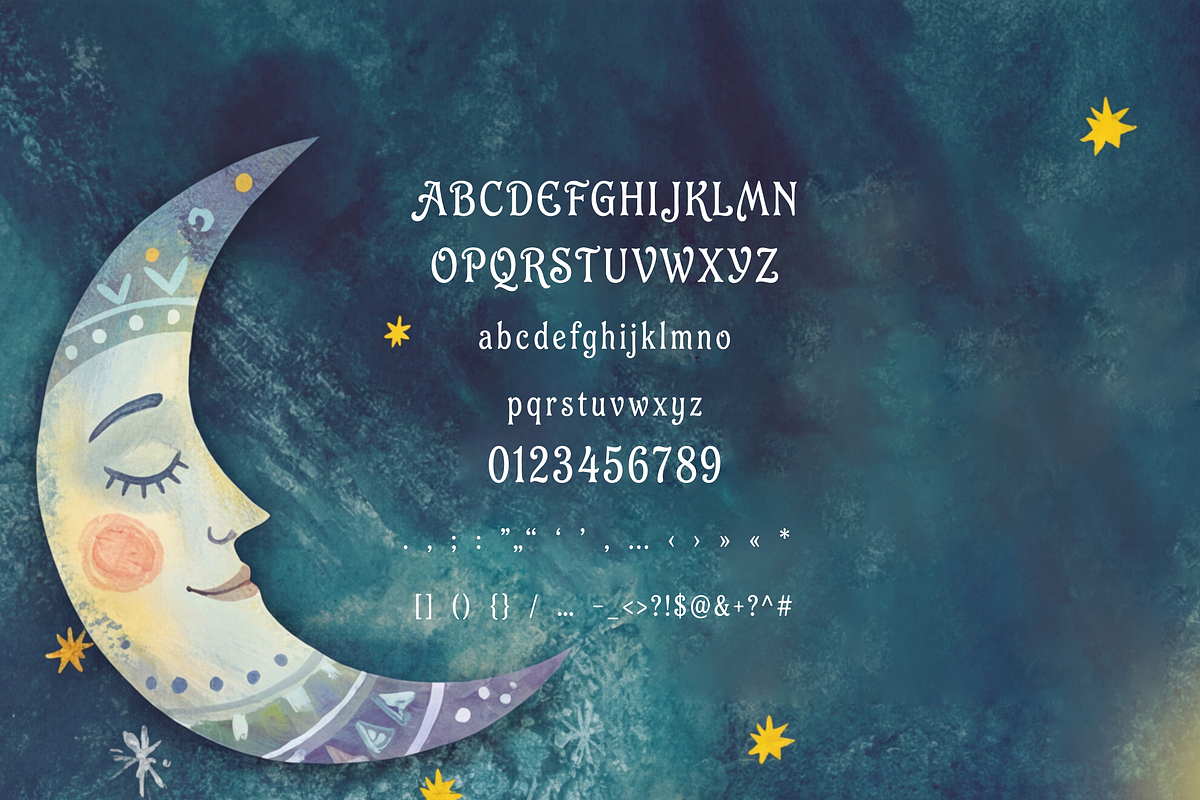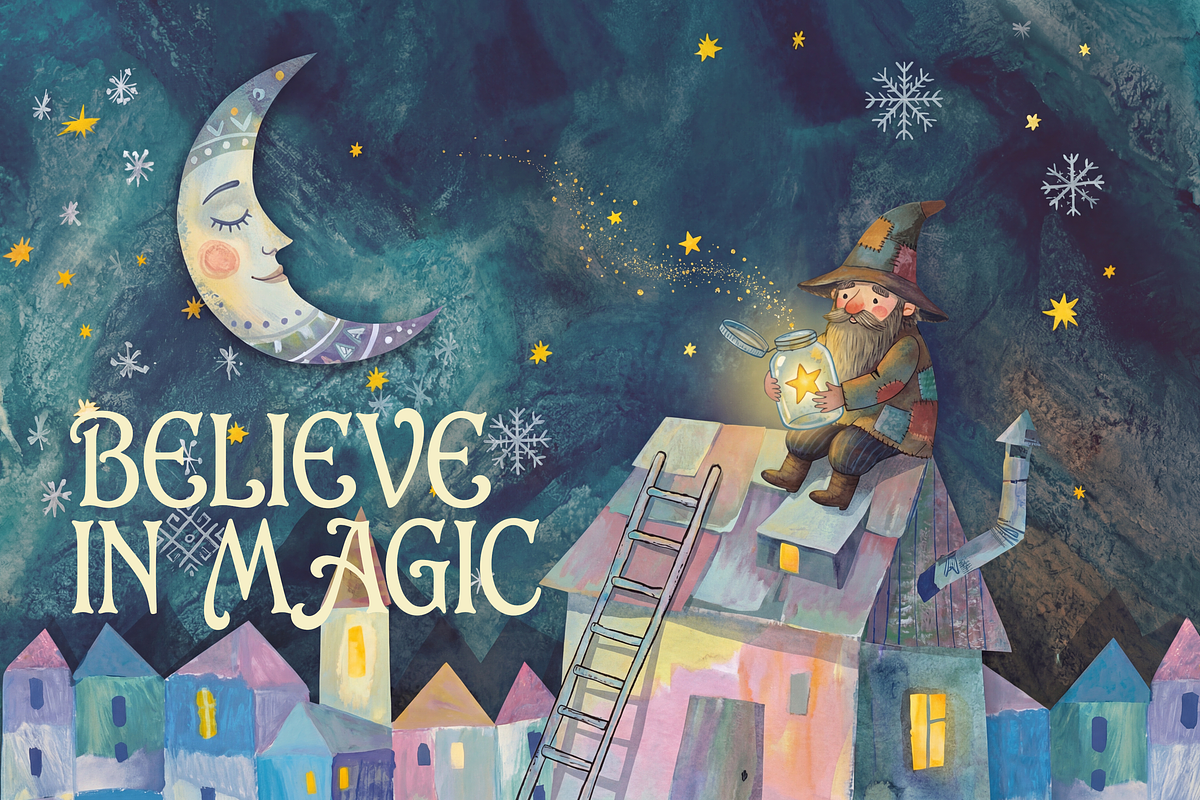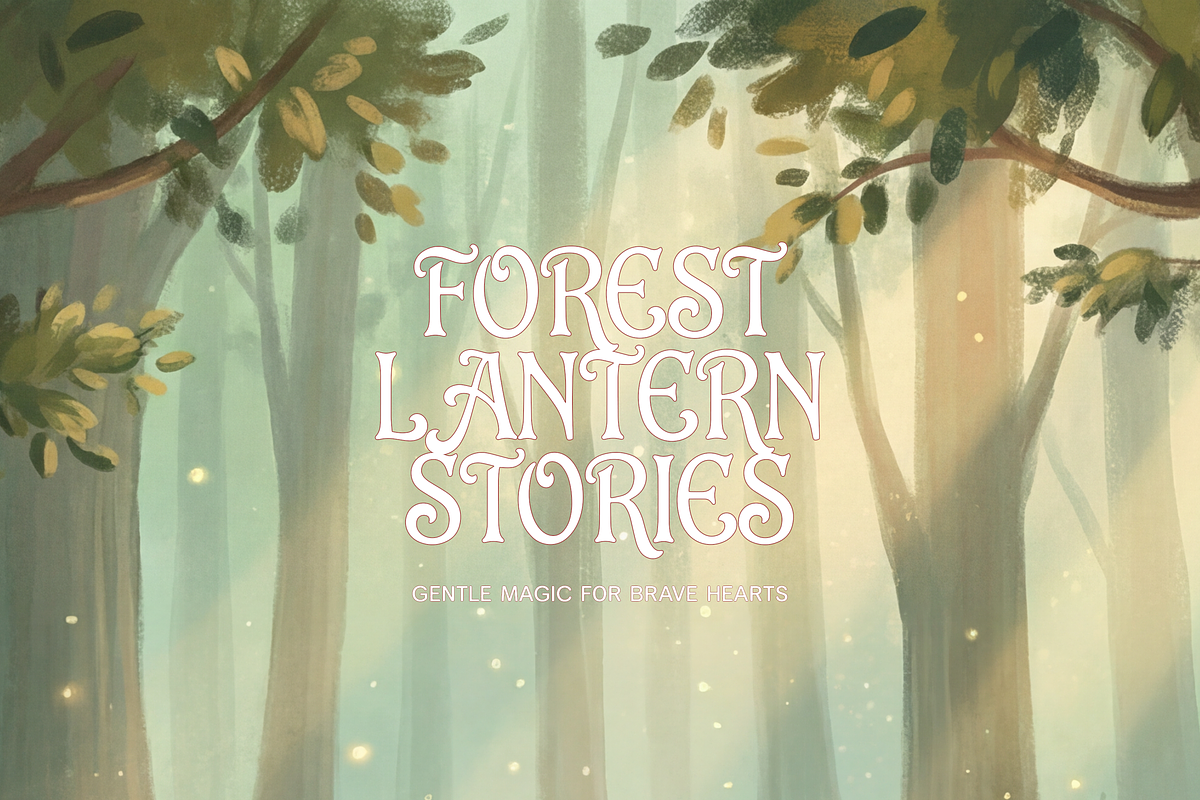
Folklore Flourish Font
Folklore Flourish is a whimsical fairytale serif font.
Perfect for storybook covers, kids branding, logos, headlines, posters, invitations, packaging, and any project that needs a cozy folklore vibe.